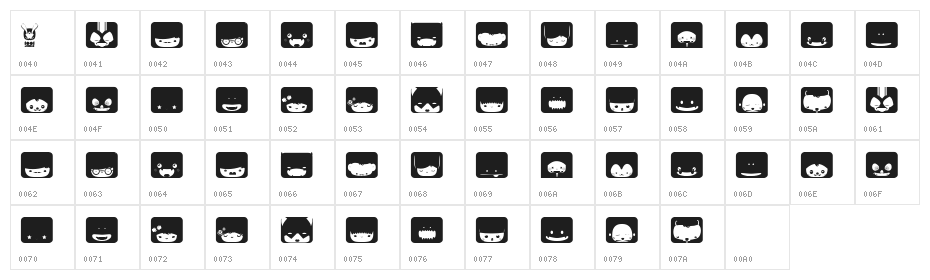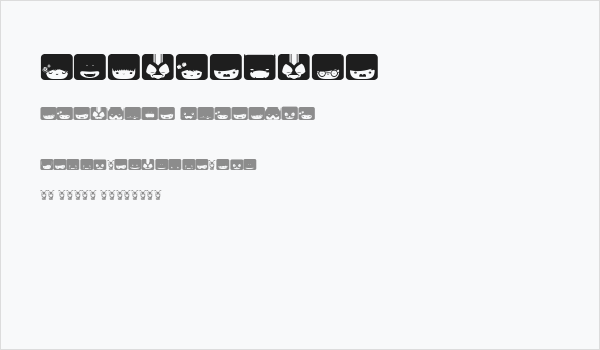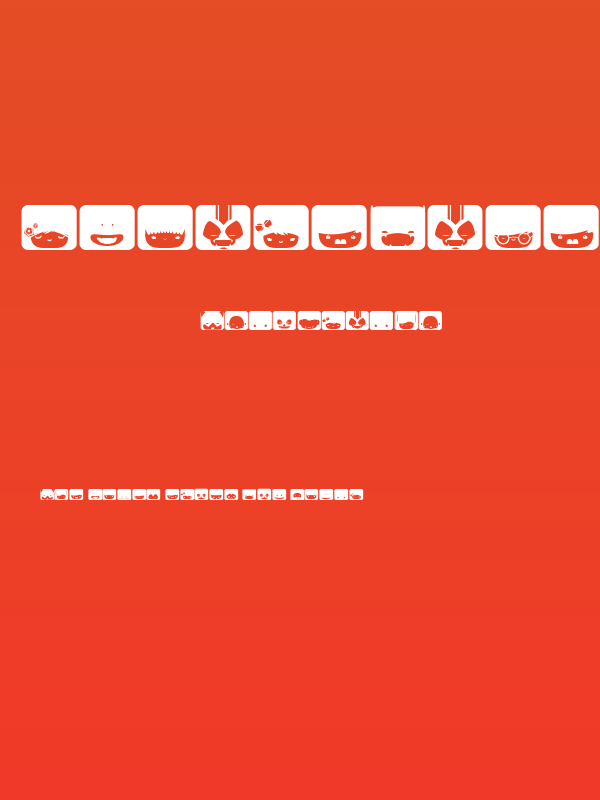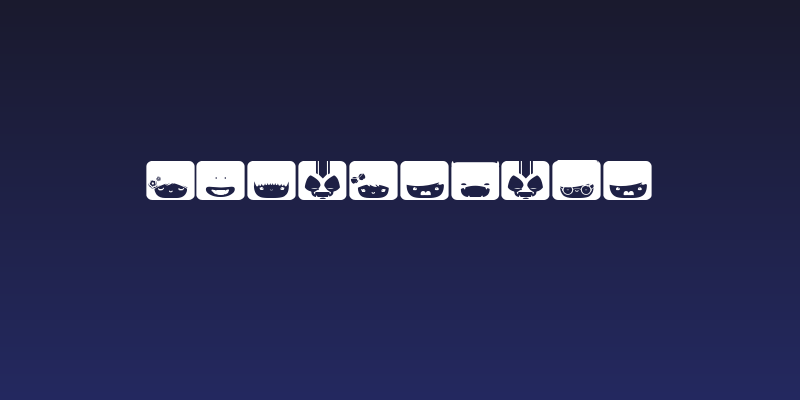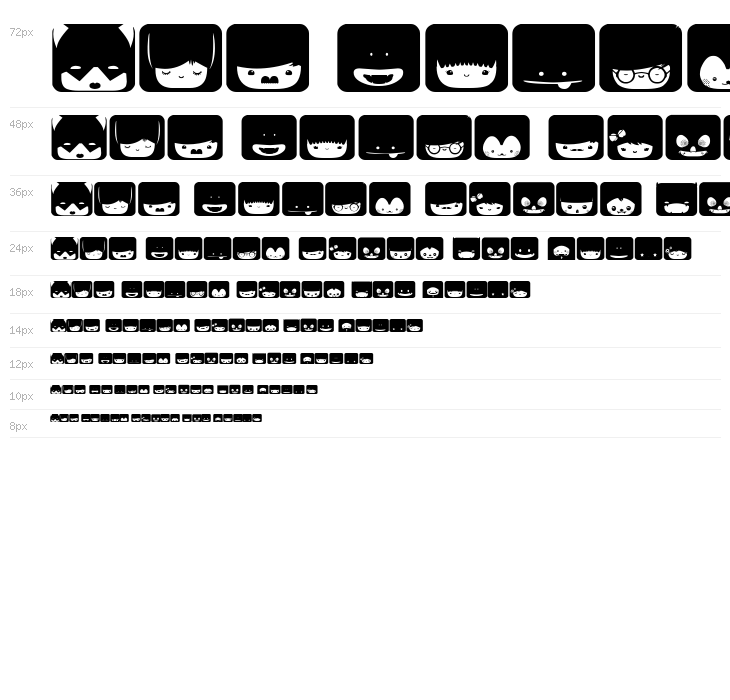
SquareFace Font
SquareFace Description
This is not a traditional font but rather a collection of decorative icons featuring various cartoonish faces and characters. Each character is enclosed within a square, presenting a playful and whimsical style. The designs include a variety of expressions and accessories, such as glasses and hats, giving each icon a unique personality. The characters are bold and have a high contrast with the background, making them stand out distinctly. This set is more suited for decorative purposes rather than textual content.
| Use Case | Logos, Decorative elements |
| Proposed Projects | Ideal for children's books, playful branding, stickers, or decorative elements in design projects. |